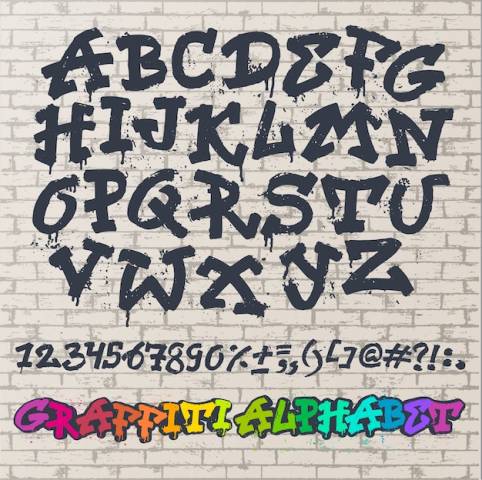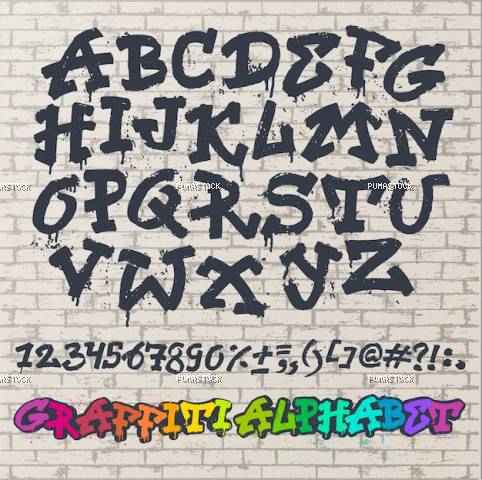
Alphabet graffity vector alphabetical font abc by brush stroke with letters and numbers or grunge alphabetic typography illustration isolated on brick wall space